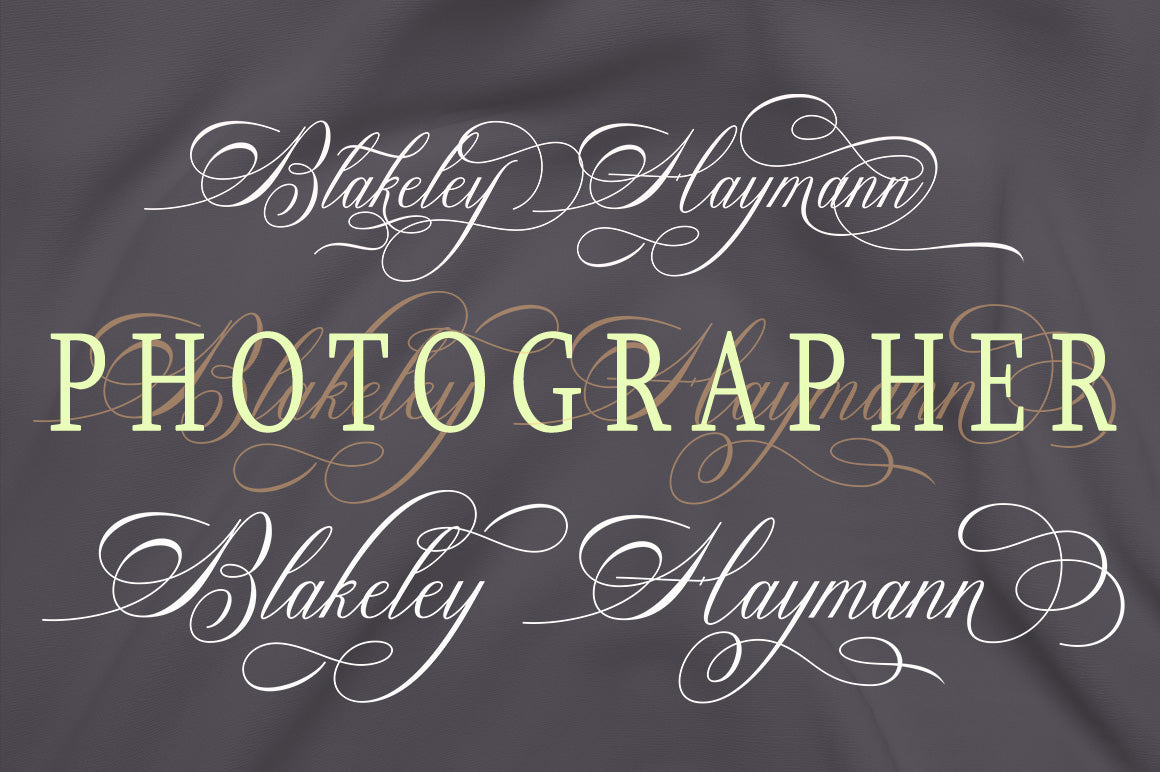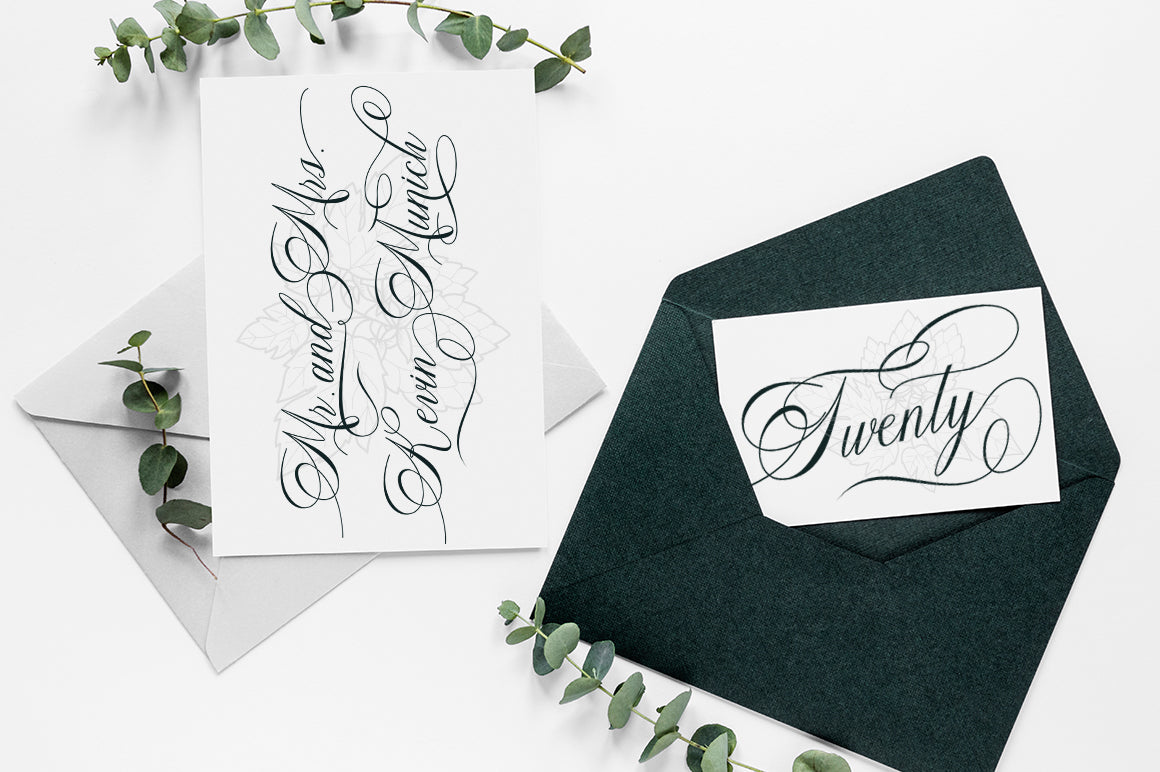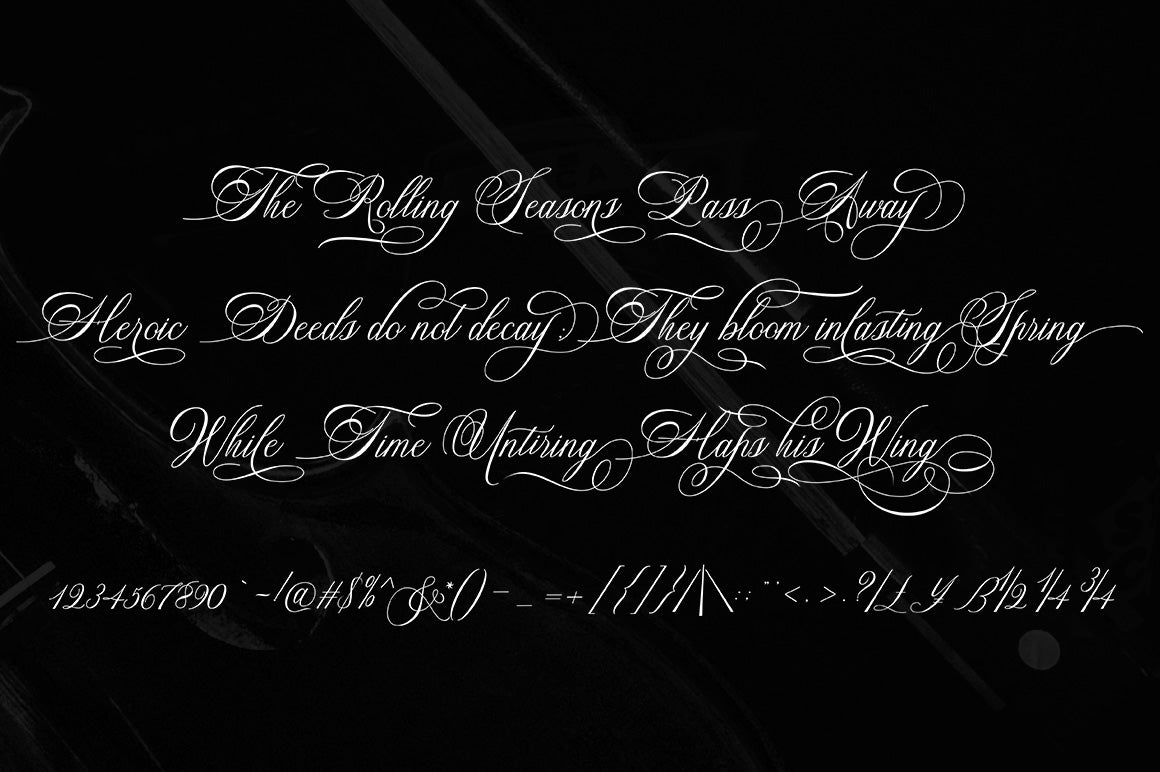
About Bolivia Script
Bolivia Script is a calligraphic script font that comes with beautiful alternative characters. a mixture of copper calligraphy with a zipper style. Designed to bring the elegance of style. Bolivia Script attracts fine, clean, feminine, sensual, glamorous, simple and very easy to read typeface. The classic style is very suitable to be applied in various formal forms such as invitations, labels, menus, logos, fashion, make up, stationery, letterpress, romantic novels, magazines, books, greeting / wedding cards, packaging, labels. Bolivia Script has 450 flying machines. including multiple language support. With OpenType features with alternative styles, binders and characters, it allows you to mix and match pairs of letters to suit your design, as well as a touch of ornament to make this font look elegant. Files included: Bolivia Script (OTF, TTF) To activate the OpenType Stylistic alternative, you need a program that supports OpenType features such as Adobe Illustrator CS, Adobe Indesign & CorelDraw X6-X7, Microsoft Word 2010 or newer. (Windows), Letter Books (Mac) or software programs like PopChar (for Windows and Mac). How to access all alternative characters using Adobe Illustrator: https://www.youtube.com/watch?v=XzwjMkbB-wQ How to use a font style set in Microsoft Word 2010 or newer: https://www.youtube.com/watch?v=NVJlZQ3EZU0 There are additional ways to access alternatives / swashes, use Character Map (Windows), Nexus Fonts (Windows) Font Book (Mac) or software programs such as PopChar (for Windows and Mac) How to access all alternative characters, using Windows Character Map with Photoshop: https://www.youtube.com/watch?v=Go9vacoYmBw Thank you for your visit.